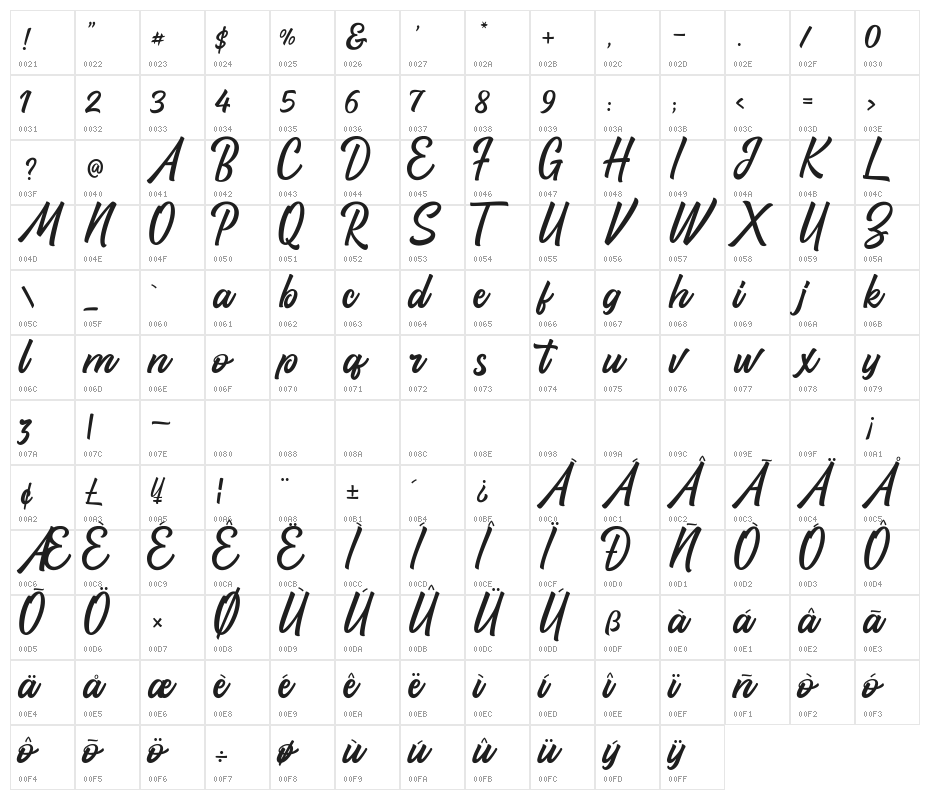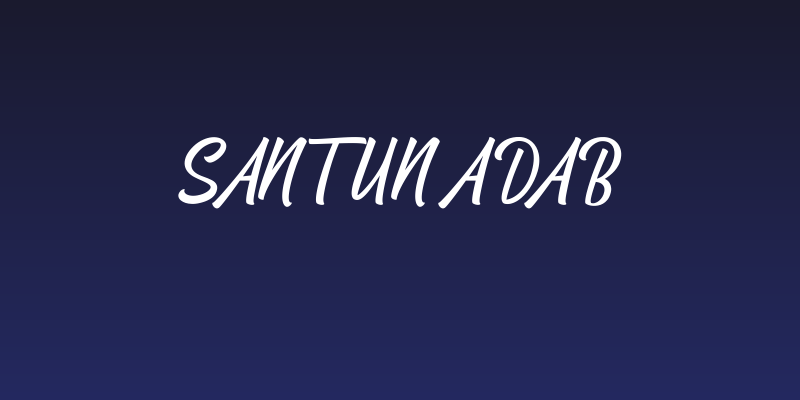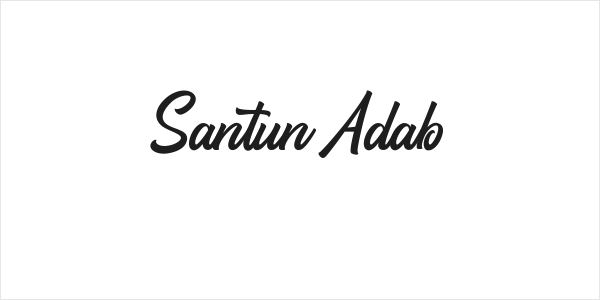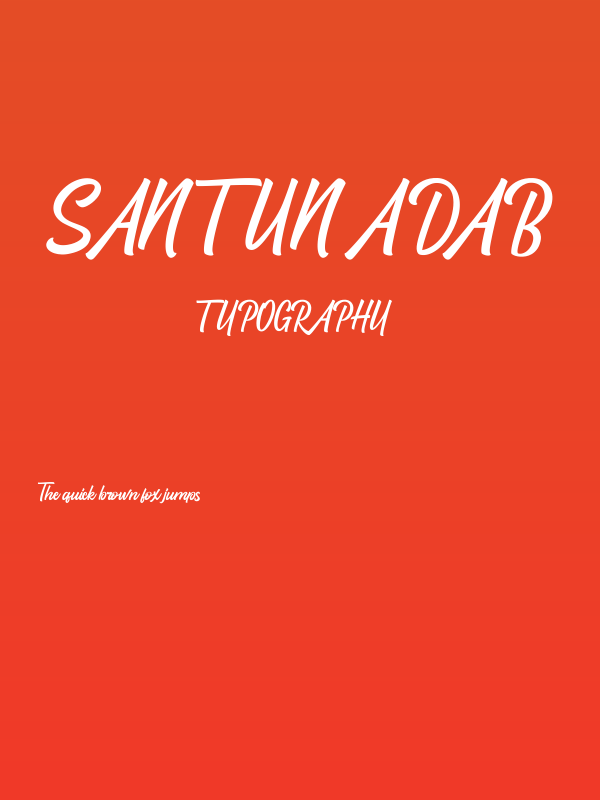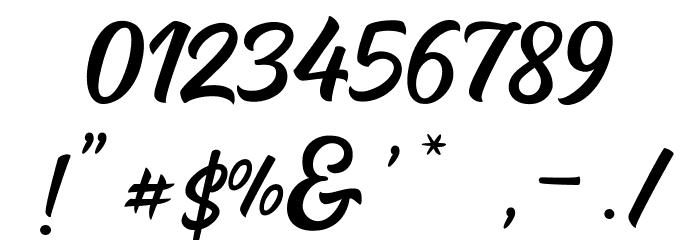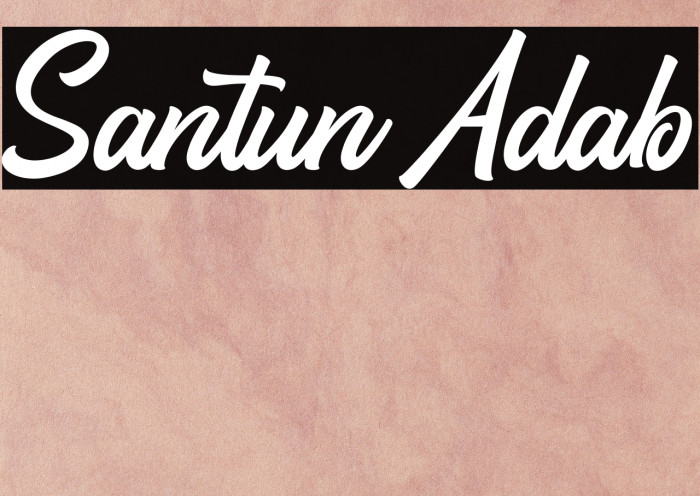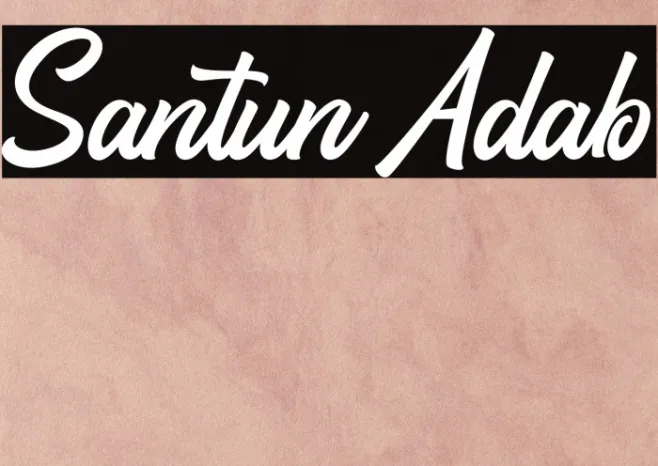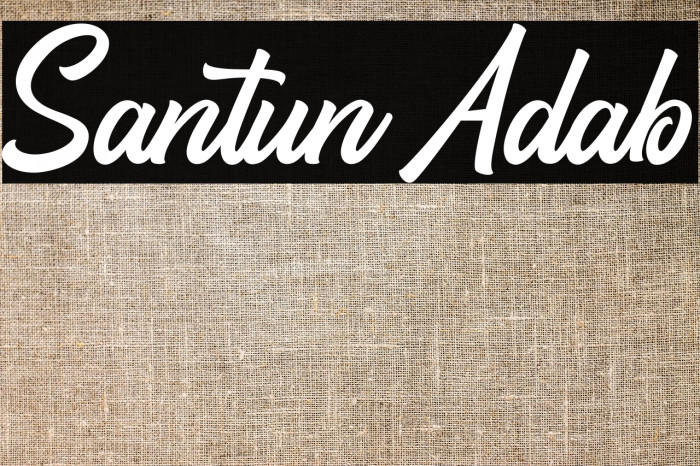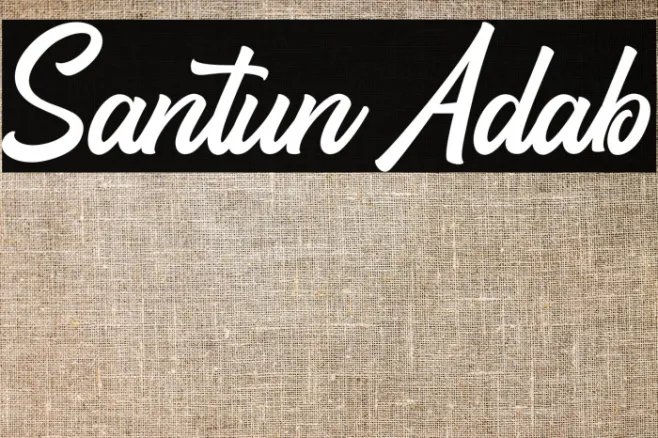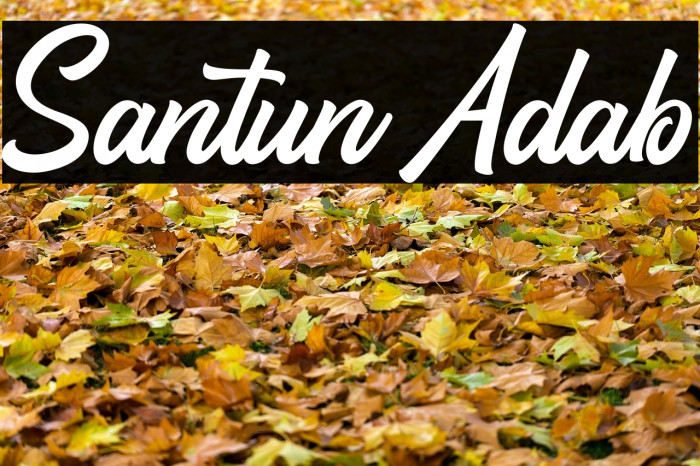
Santun Adab Font
Santun Adab Description
This font exudes a dynamic and energetic feel with its bold, flowing script style. The characters are interconnected, giving a sense of continuity and movement. The uppercase letters are tall and slightly slanted, while the lowercase letters maintain a consistent flow, enhancing readability. The numbers and special characters are designed to match the overall aesthetic, ensuring a cohesive look. The font's bold strokes and smooth curves make it ideal for creating impactful designs that require a touch of elegance and flair.
| Use Case | Logos, Invitations, Greeting cards |
| Proposed Projects | Ideal for branding, invitations, greeting cards, and logo design where a personal touch is desired. |